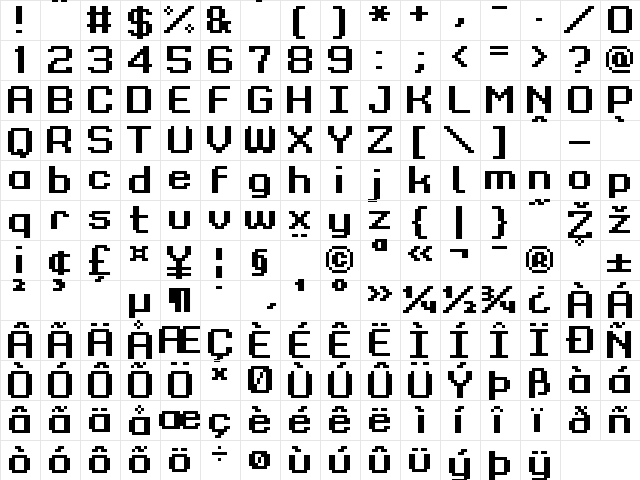
Grixel Kyrou 9 Regular Bold Regular Font Preview
Grixel Kyrou 9 Regular Bold Regular
Grixel Kyrou 9 Regular Bold Regular Font Details
Design Context for Grixel Kyrou 9 Regular Bold Typeface
Grixel Kyrou 9 Regular Bold offers clean, dependable letterforms without strong stylistic allegiance, making it a practical choice for designers who need flexibility. The heavy weight commands attention and anchors typographic hierarchies.